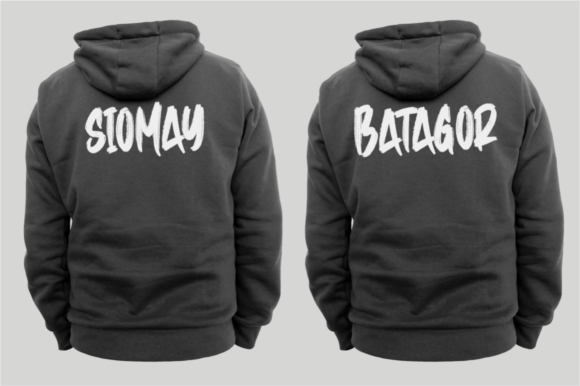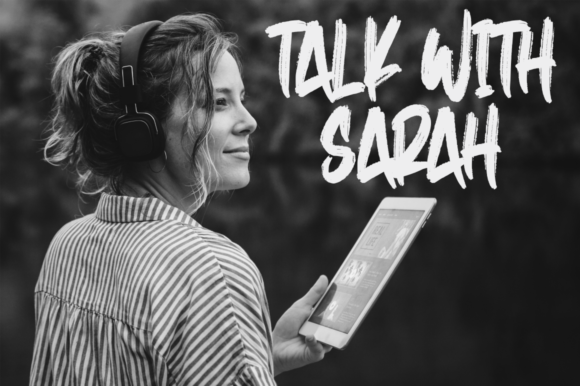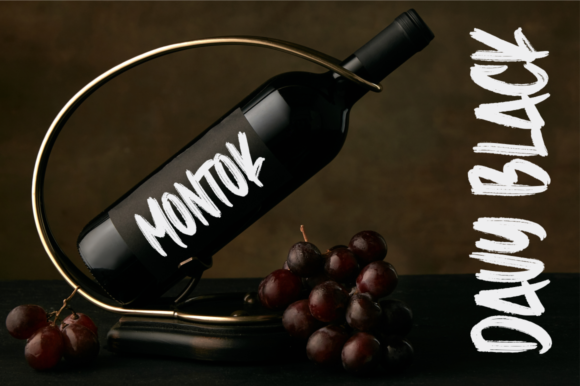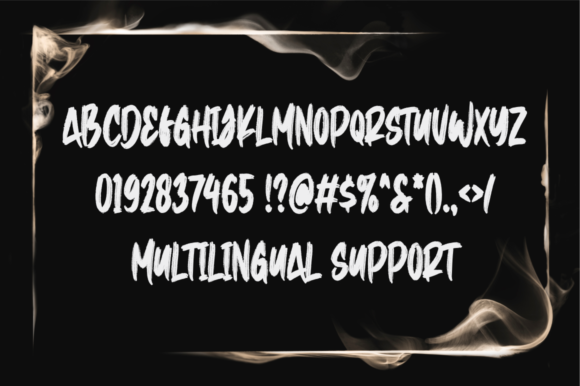
Introduction to Davy Black Font
Davy Black a brush display font.
It features ligatures and characters that will take your projects to the next level Use it to create outstanding wedding designs, blogs, online shops, social media posts, or use it for printing on clothing, accessories, bags, pins, logos, business cards, watermarks, and many others.
Key Features of Davy Black Font
Why Choose Davy Black Font?
Davy Black Font offers exceptional quality and versatility, making it a valuable addition to your design toolkit. Whether you’re creating for personal projects or commercial use, Davy Black Font delivers professional results.